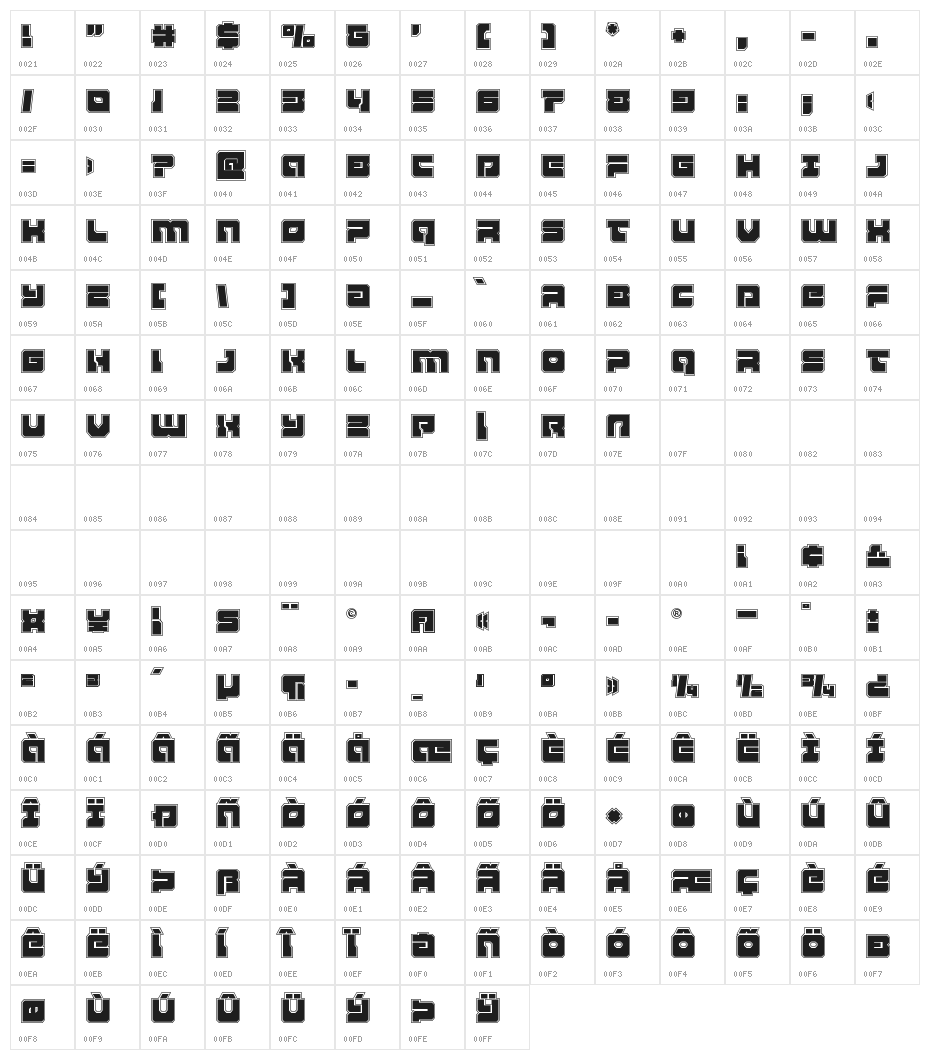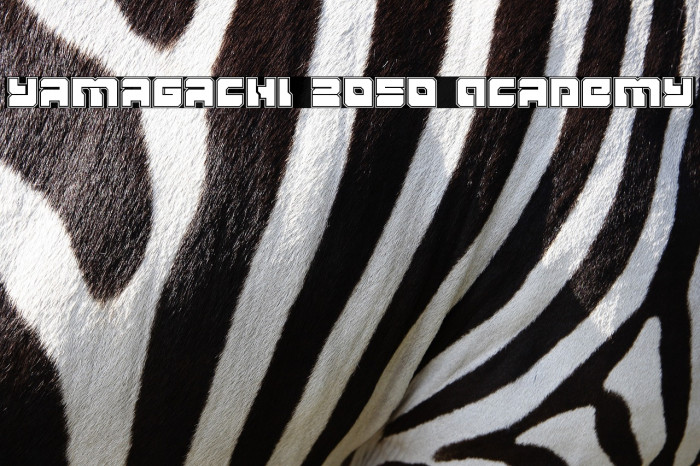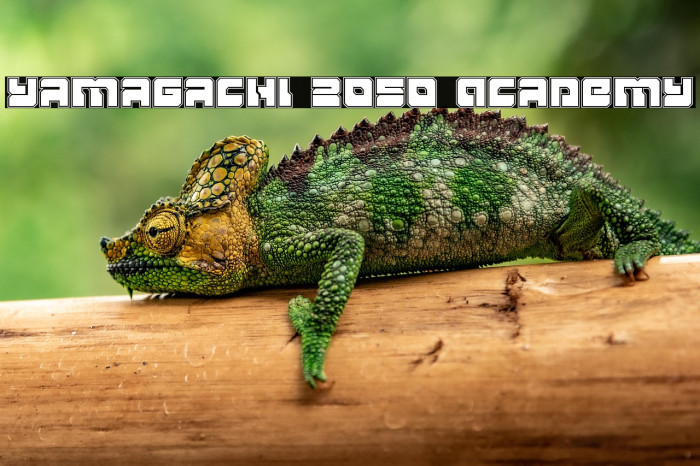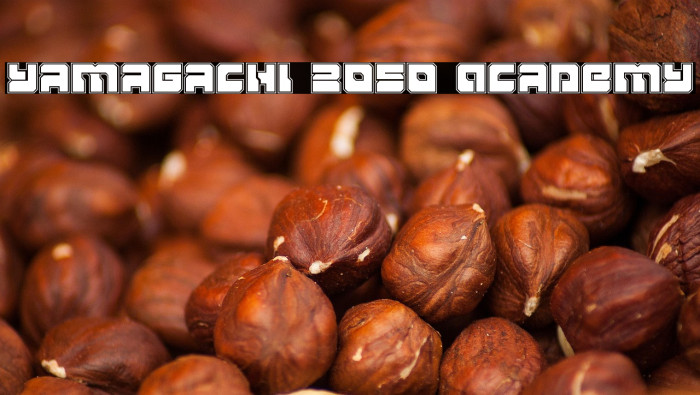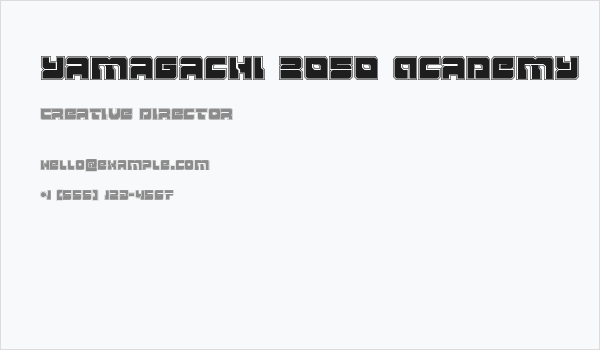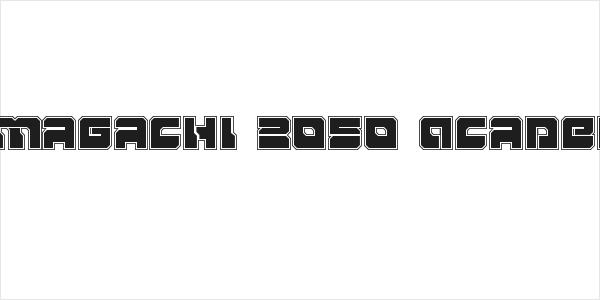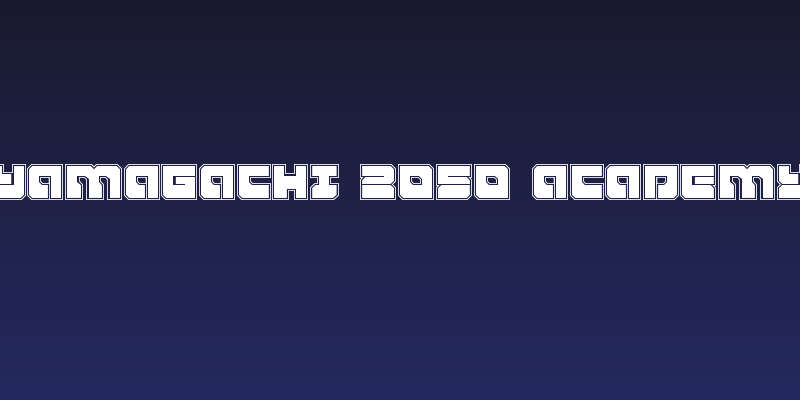
Yamagachi 2050 Academy Font
Yamagachi 2050 Academy Description
This font features a bold, futuristic design with a strong geometric structure. Each character is outlined with a thick border, creating a striking contrast between the inner and outer sections. The letters are blocky and angular, with sharp edges and a uniform height, giving it a cohesive and modern appearance. The numbers and special characters follow the same design principles, ensuring consistency throughout the typeface. This font is ideal for projects that require a bold and impactful visual statement.
Proposed ProjectsIdeal for sci-fi themed designs, video game titles, posters, and branding that requires a modern and bold aesthetic.